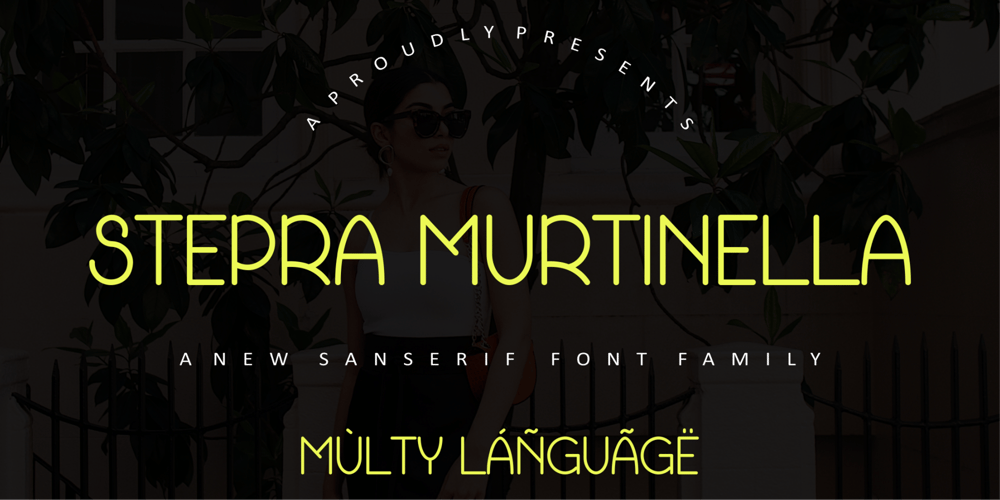
Stepra Murtinella Font Family was designed by Iskandar Zulkarnain and published by Wontenart. Stepra Murtinella contains 1 styles and family package options. is a sans serif font with a wide range of uses,This san serif output can cover any productfrom fashion products, such as beauty equipment, clothes, shoes, magazines, women’s knick-knacks to anything related to today’s women.I made this font more subtle than the typical san serif family.because it is intended for more detailed beauty.You can see a preview of it in the image I made.Thank you